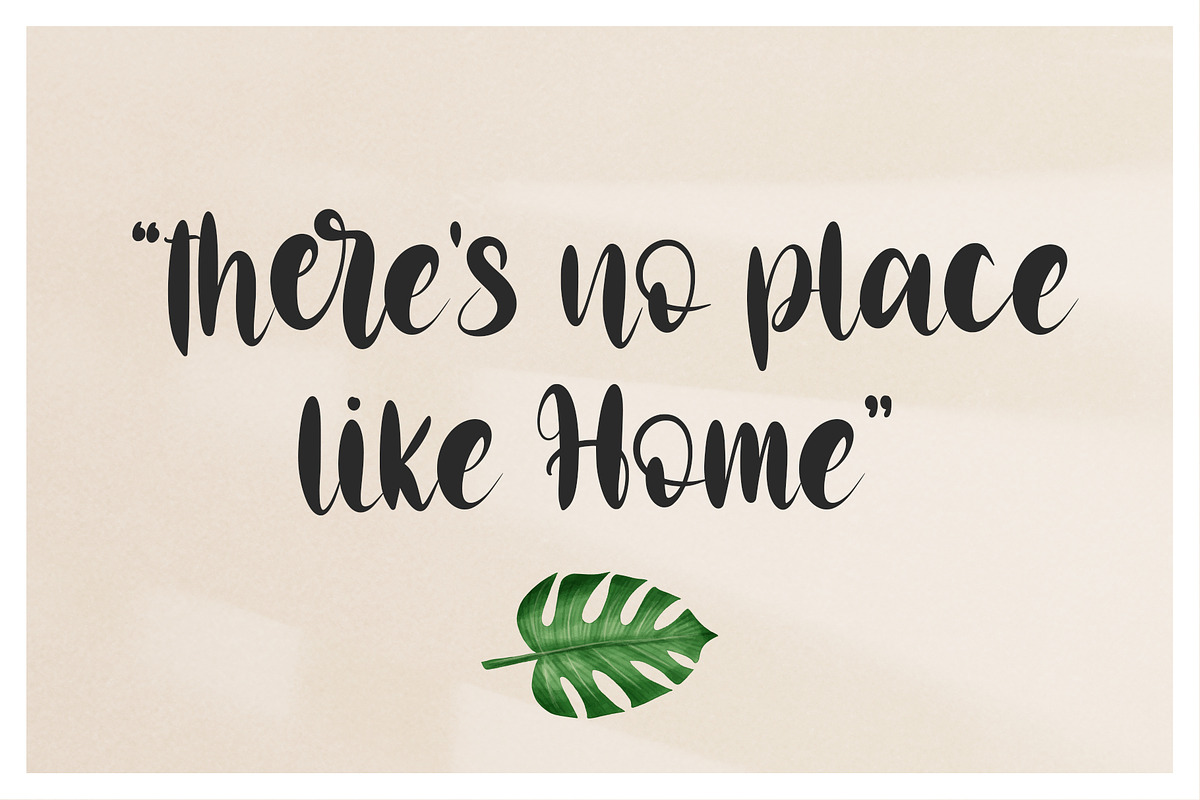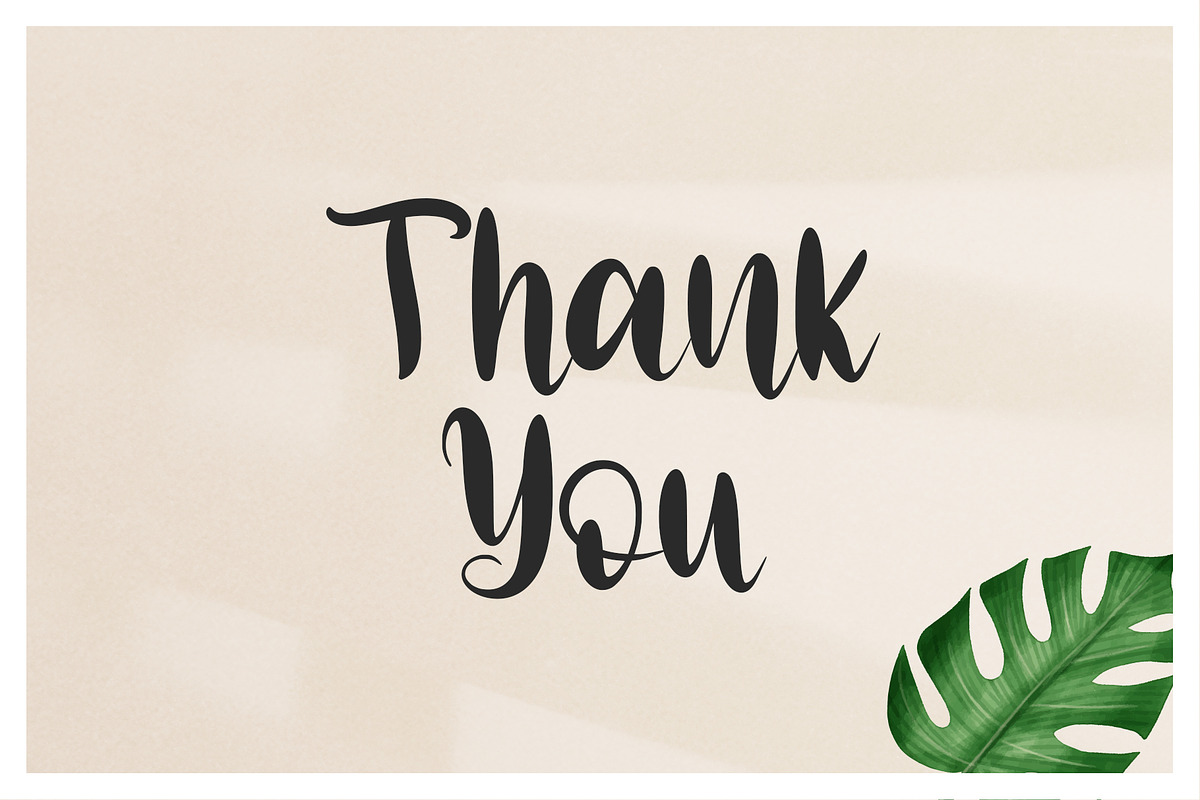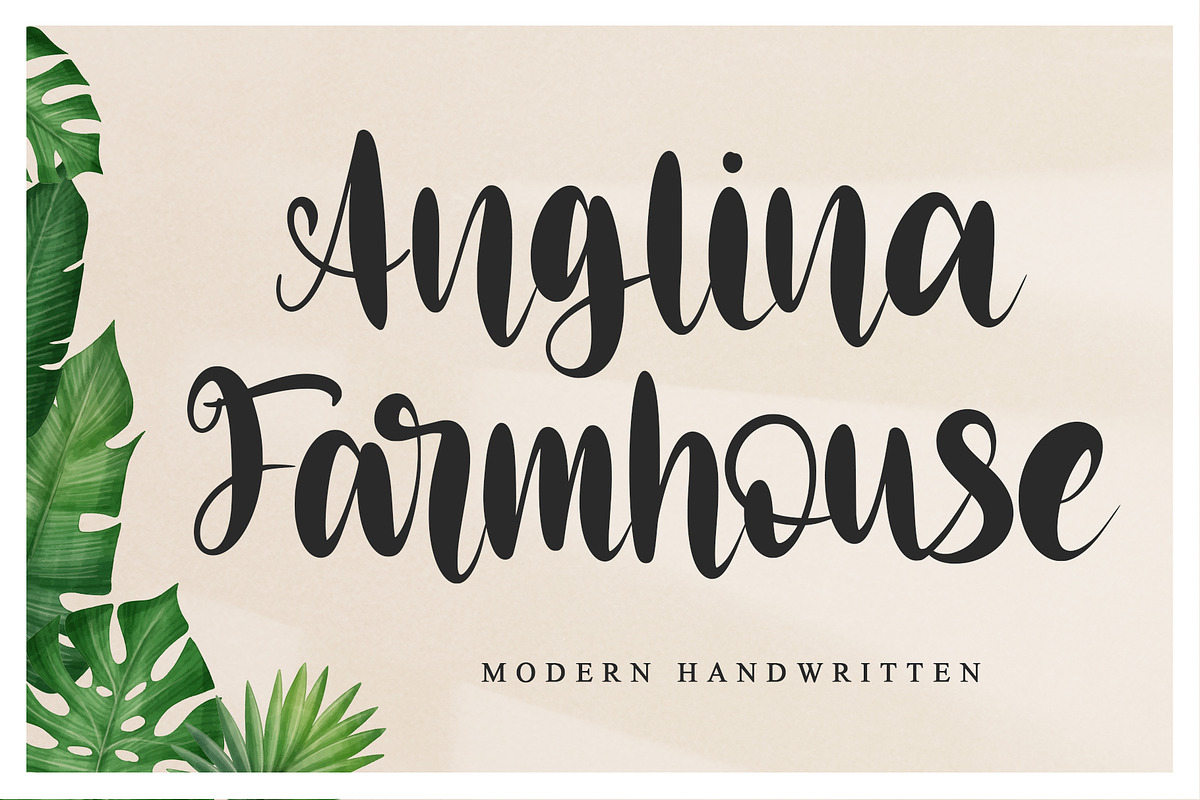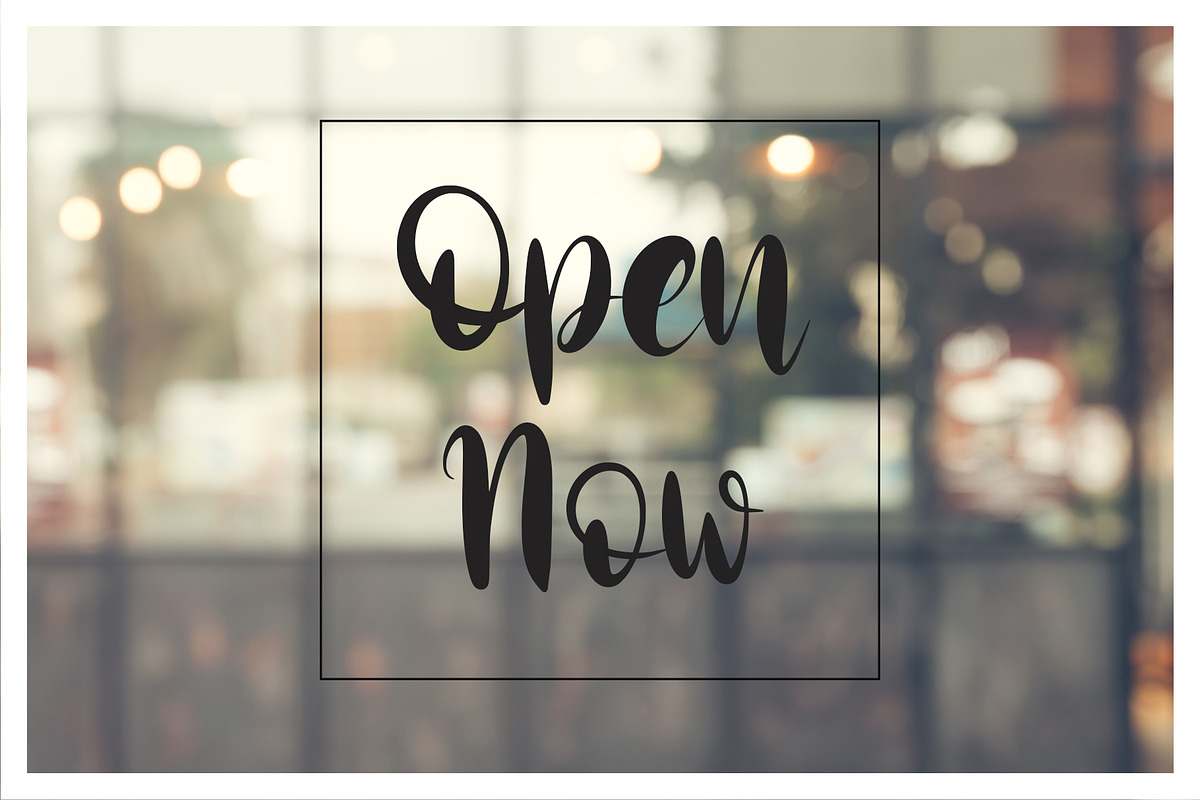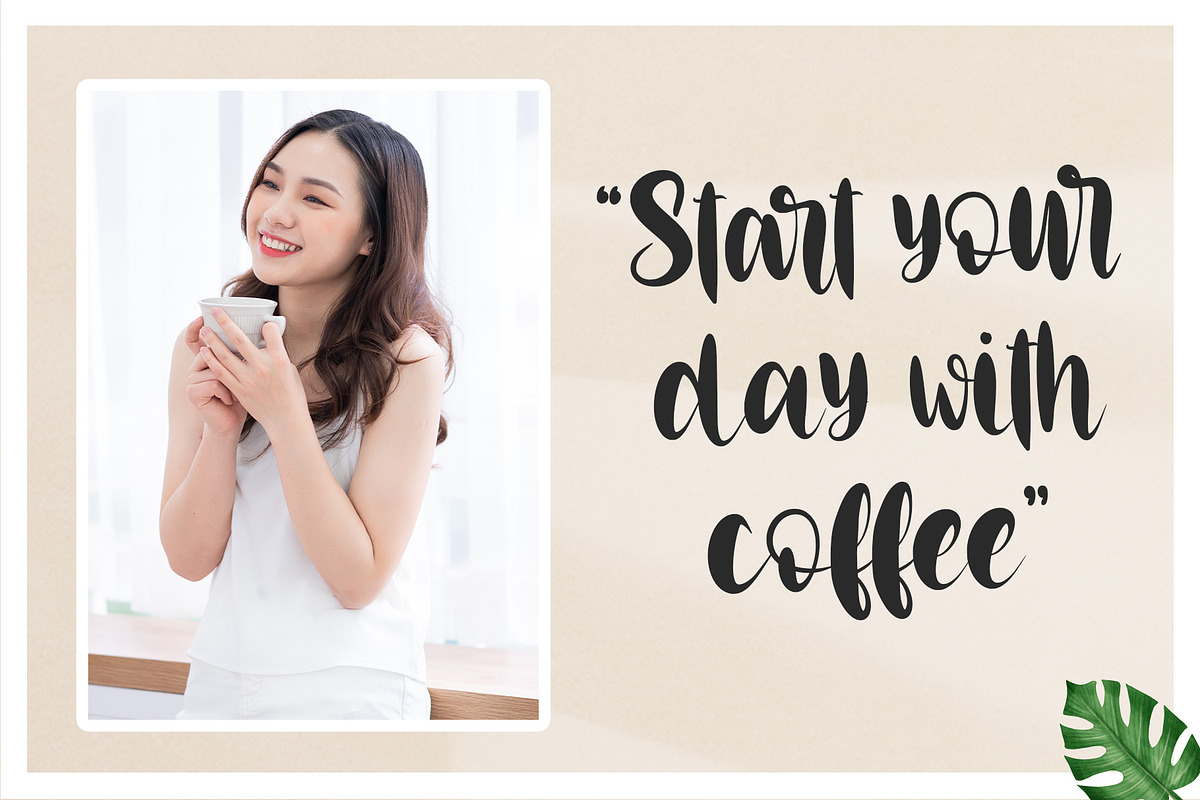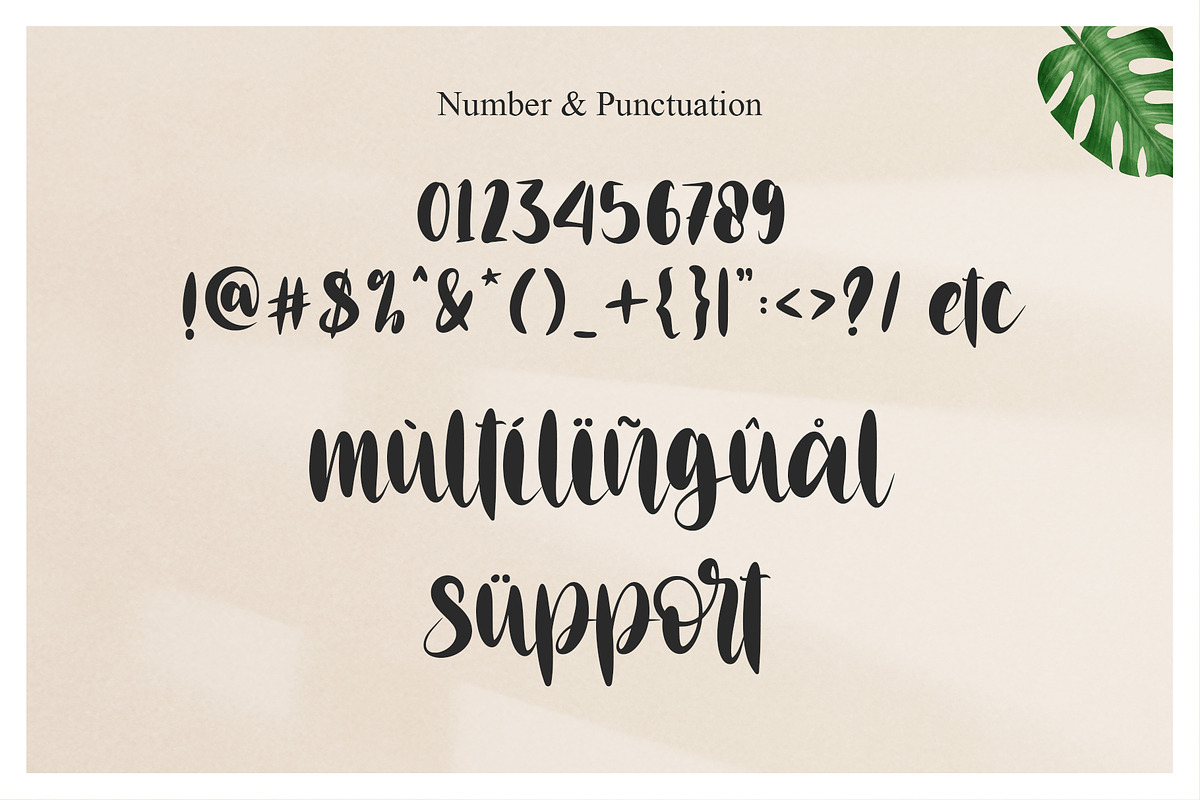
Anglina Farmhouse
A simple Anglina Farmhouse font looks unique and classy. Its beautiful charm makes it look absolutely stunning, easy to read, and incredibly versatile. This will add a fun and friendly touch to any of your projects. This font is PUA encoded, which means you can easily access all the glyphs and sweeps.
- Support multilingual; ä ö ü Ä Ö Ü ß ¿ ¡
- lowercase and uppercase letters
- ligature